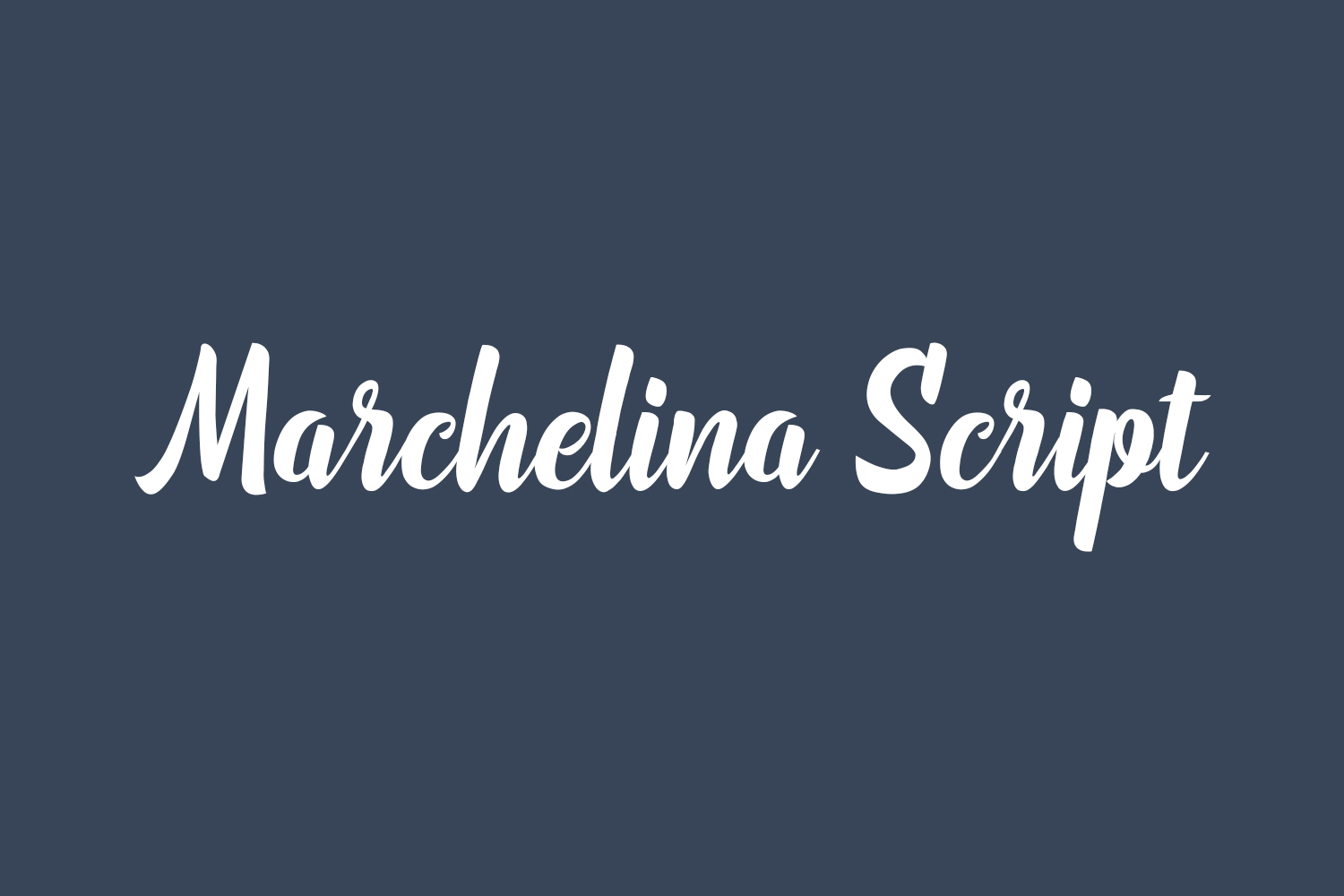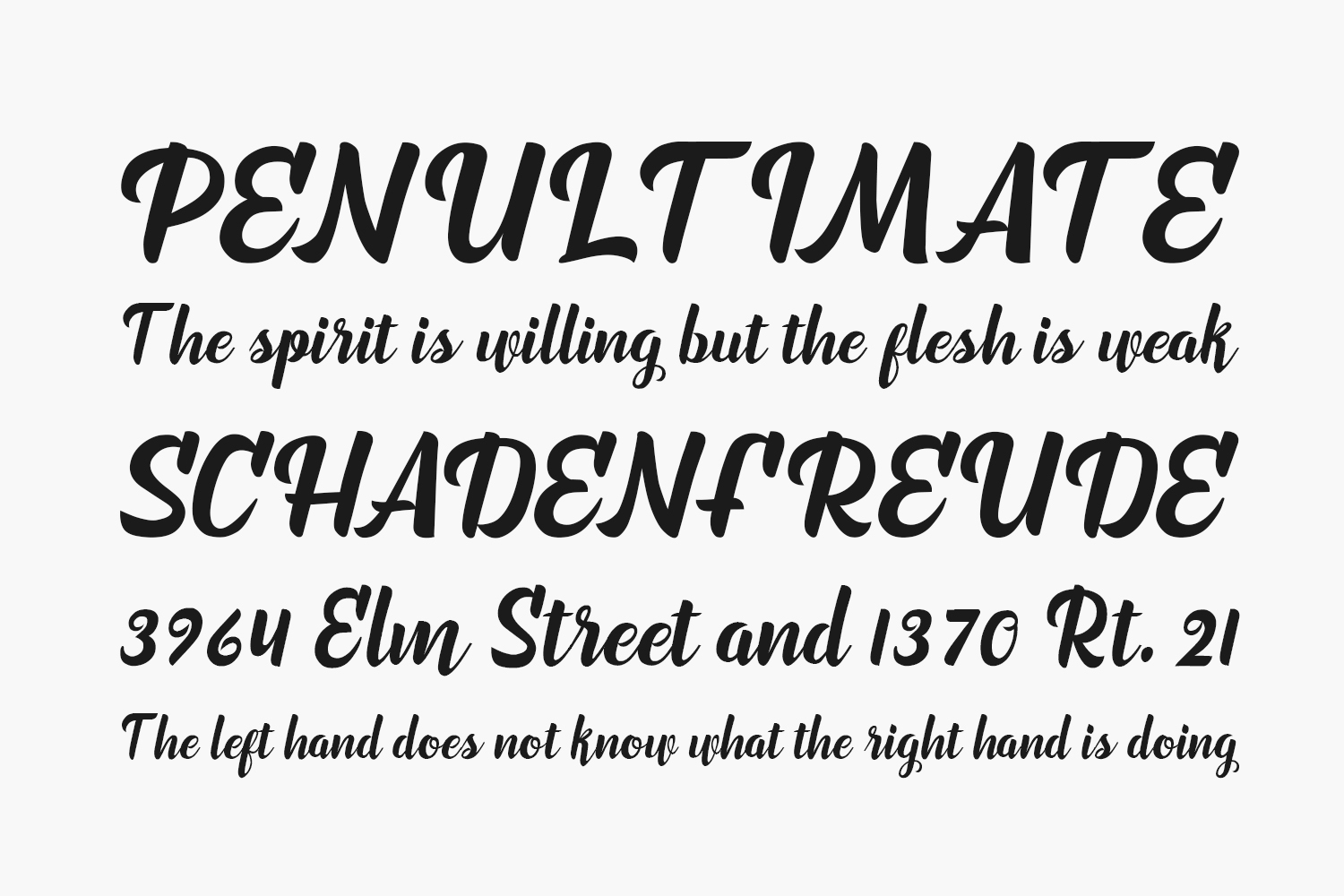
Marchelina Script Free Font is a beautiful and bold handwritten font with elegant swashes. It will effortlessly turn any design idea into a stand out. Marchelina Script Free Font was designed by Cotbada Studio and is free for personal use only. Please purchase the full version for commercial use.
Designed by Cotbada Studio